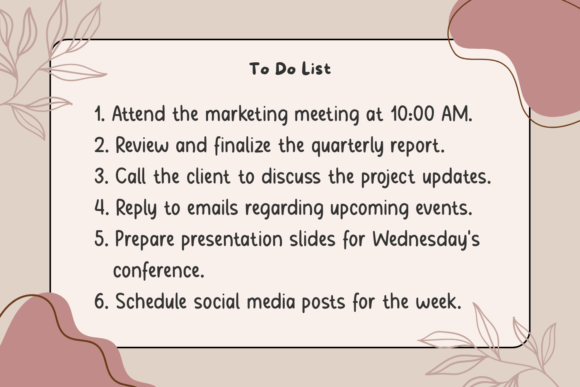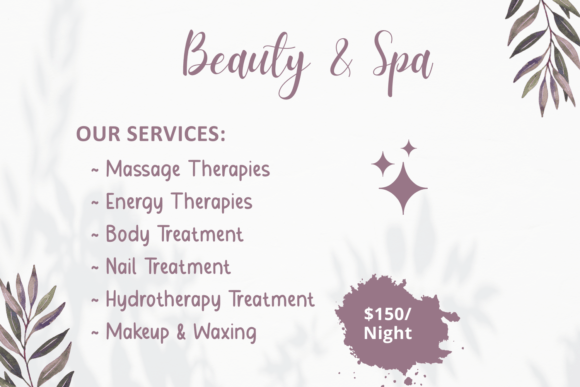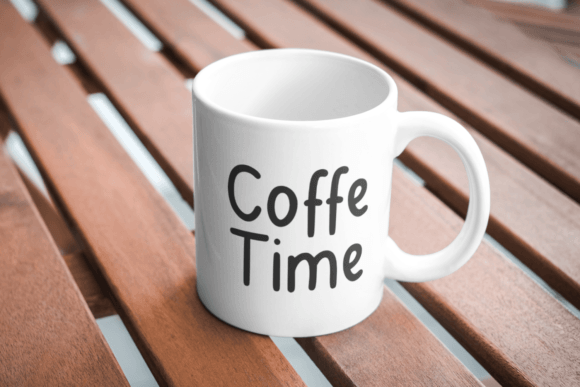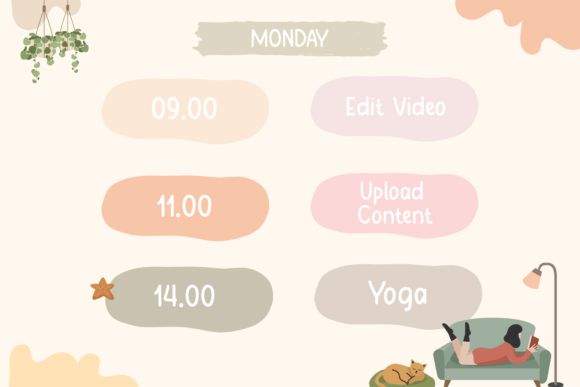
Introduction to Honey Pancake Font
Introducing Honey Pancake, a charmingly uncomplicated handwritten sans serif font.
Brimming with charm, this delightful typography takes on a unique neatness, making it a picture-perfect choice for those seeking a cute, clean aesthetic Honey Pancake captures the very essence of simplicity, and yet, it surely doesnโt compromise on its ability to leave a lasting impression.
Key Features of Honey Pancake Font